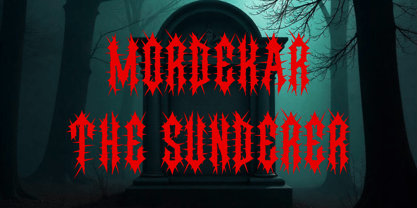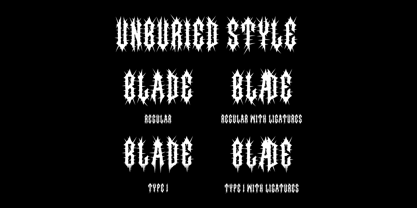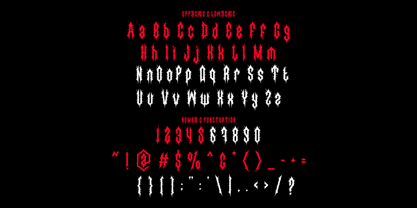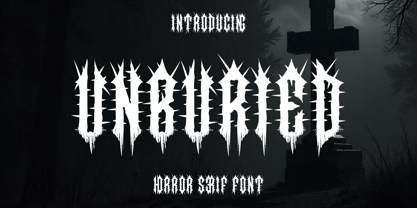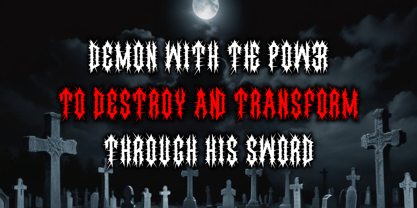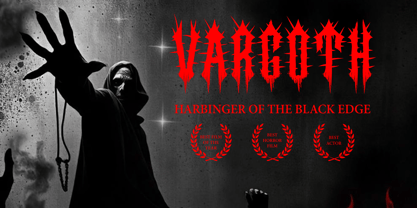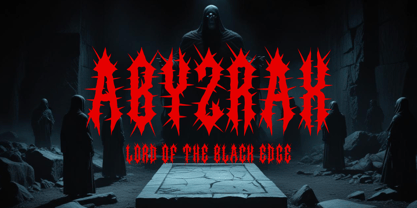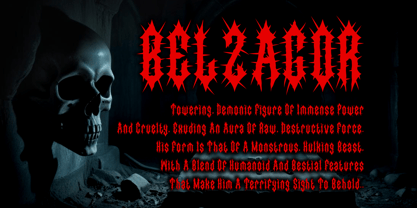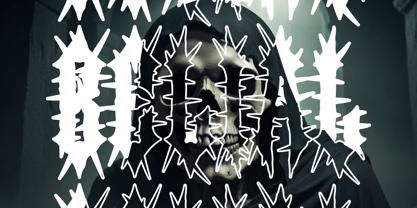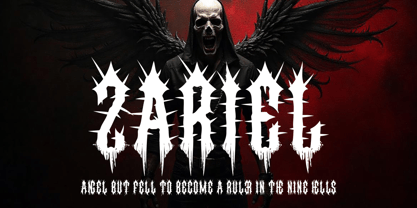
Unburied
La familia tipográfica Unburied fue diseñada por Putra Novembria Candra Kusuma y publicada por Putracetol. Unburied contiene 2 estilos y opciones de paquete familiar. Más información sobre esta familia
Unburied is a spine-chilling horror serif font designed to evoke a sense of darkness and fear. Its sharp, spiky edges and blackletter-inspired details create an intense, gothic aesthetic that’s perfect for horror-themed designs. Each letter drips with eerie precision, resembling jagged claws or ancient carvings, making it ideal for projects that demand a sinister and mysterious atmosphere. This font thrives in dark and haunting environments, as showcased against the backdrop of a shadowy graveyard with ominous crosses and moonlight. The high-contrast white lettering stands out vividly, amplifying its dramatic appeal.
Whether you’re designing for metal band logos, horror movie titles, spooky invitations, or macabre book covers, Unburied sets the tone with its edgy and death-metal-inspired style. Its versatility makes it suitable for branding, posters, packaging, and even crafting projects that need a touch of the uncanny. Let Unburied bring a hauntingly beautiful edge to your next design project.